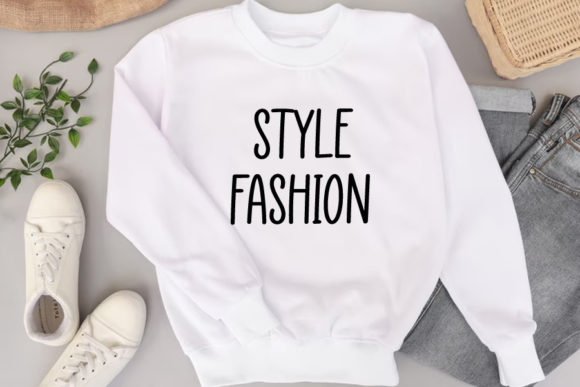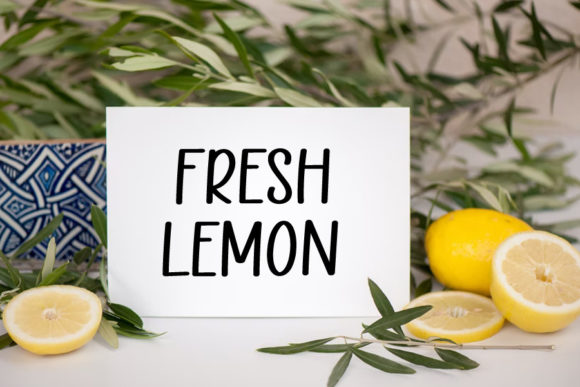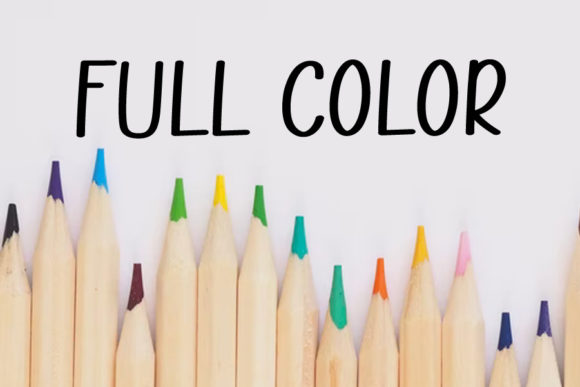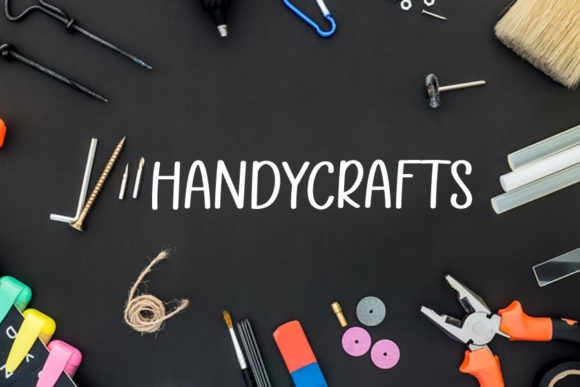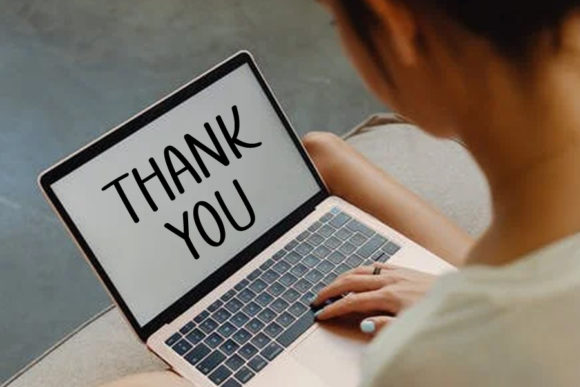
Introducing Basecamp Font: Elevate Your Designs with a Fresh and Beautiful Handwritten Style
Are you tired of using the same old fonts in your designs? Look no further! Basecamp Font is here to revolutionize your creative projects with its fresh and beautiful handwritten style. This stunning font is perfect for designers and crafters looking to add a personal touch to their work. Whether you’re creating YouTube banners, cover logo mockups, wedding invitations, cards, flyers, or crafts, Basecamp Font is the perfect choice.
What Makes Basecamp Font Special?
Basecamp Font is a unique and elegant handwritten font that is sure to make your designs stand out. Its fresh and beautiful style is perfect for a wide range of applications, from digital designs to print materials. The font is carefully crafted to provide a smooth and consistent look, making it easy to read and visually appealing.
One of the best things about Basecamp Font is its versatility. It can be used for both personal and commercial projects, and its flexibility makes it suitable for a variety of design purposes. Whether you’re a professional designer or a crafter, this font is sure to become a staple in your design toolkit.
Why Choose Basecamp Font?
So, why should you choose Basecamp Font for your designs? Here are just a few reasons:
- Unique and Eye-catching: Basecamp Font is a one-of-a-kind font that will make your designs stand out from the crowd. Its fresh and beautiful style is sure to grab attention and leave a lasting impression.
- Easy to Read: Despite its elegant and handwritten style, Basecamp Font is easy to read and understand. This makes it perfect for designs that require a clear and concise message.
- Versatile: Basecamp Font can be used for a wide range of design purposes, from digital designs to print materials. Its flexibility makes it suitable for various projects, including YouTube banners, wedding invitations, and crafts.
- High-quality: Basecamp Font is a high-quality font that is carefully crafted to provide a smooth and consistent look. Its quality is evident in its smooth lines and elegant style.
How to Use Basecamp Font in Your Designs
Using Basecamp Font in your designs is easy! Here are a few tips to get you started:
- Pair it with Other Fonts: Basecamp Font can be paired with other fonts to create a unique and visually appealing design. Experiment with different font combinations to find the perfect look for your project.
- Use it for Headings and Titles: Basecamp Font is perfect for headings and titles, where its elegant and handwritten style can really shine.
- Add it to Your Digital Designs: Basecamp Font can be used in digital designs, such as YouTube banners, social media graphics, and website headers.
- Use it for Print Materials: Basecamp Font is also suitable for print materials, such as wedding invitations, cards, flyers, and crafts.